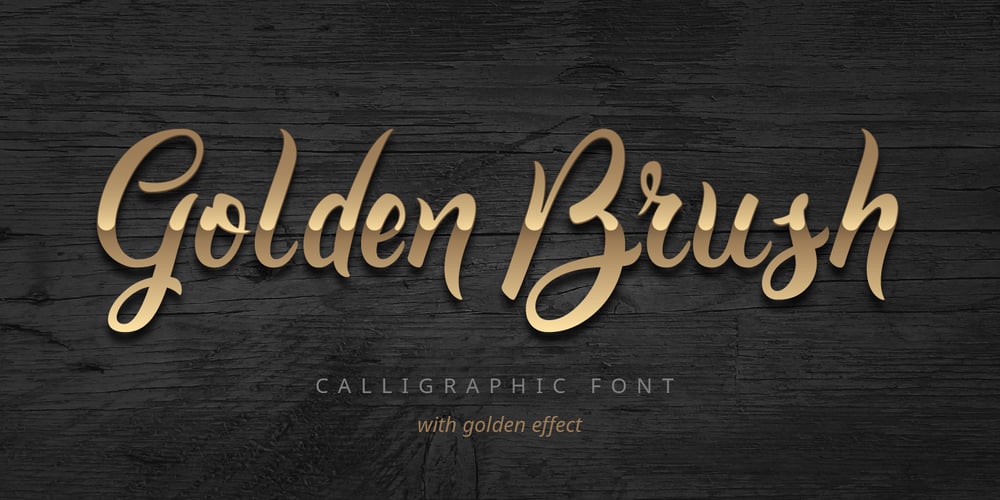
Golden Brush Font Family was designed by Gleb Guralnyk and published by Gleb Guralnyk. Golden Brush contains 2 styles and family package options. Introducing Golden Brush font. It’s based on handmade calligraphy with adding a nice golden shiny effect. It consists of two font files: one for base font and another for highlight shape.